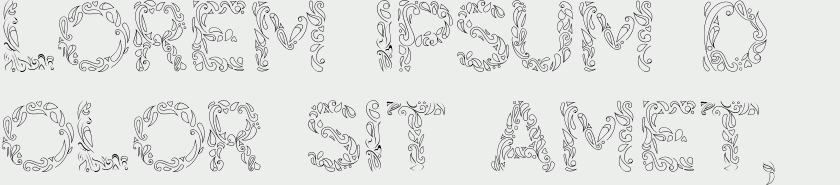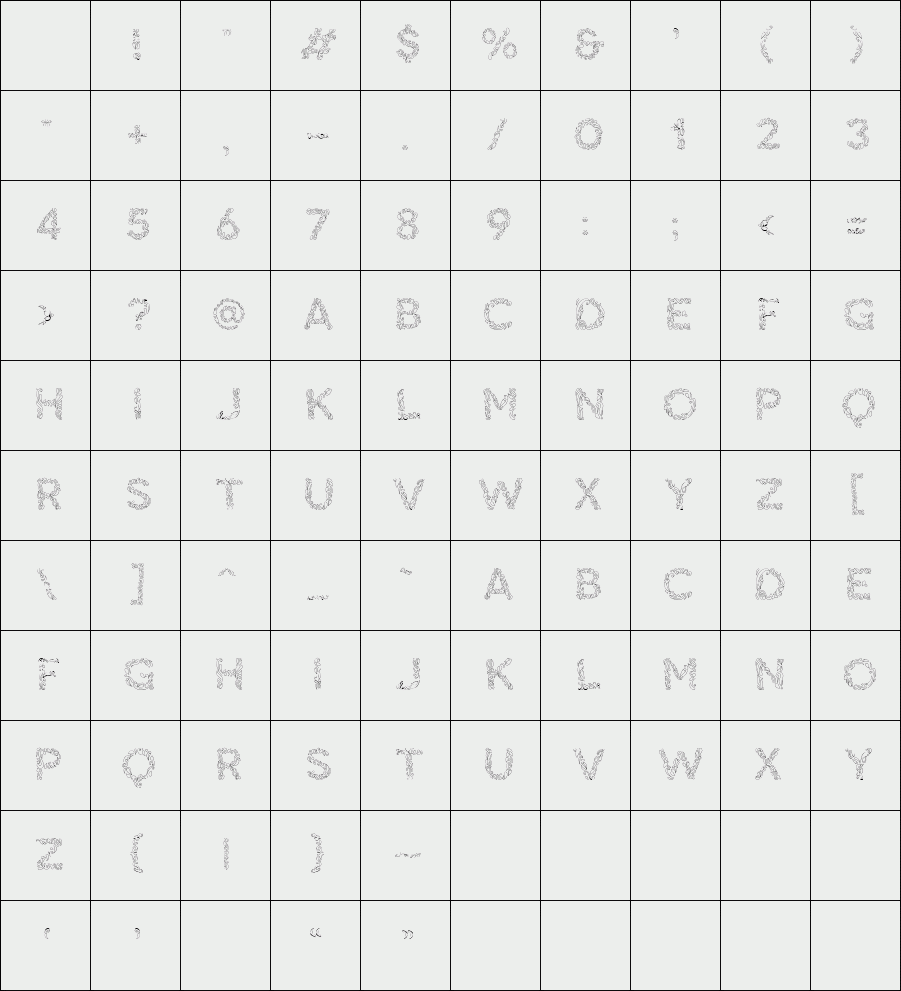
Floralism
Design inspired by 60's psychedelic era and transformed into a font. Character structure based on Novecento. Hand-drawn font transformed into vector in Illustrator. Best used at large sizes and for display text only.